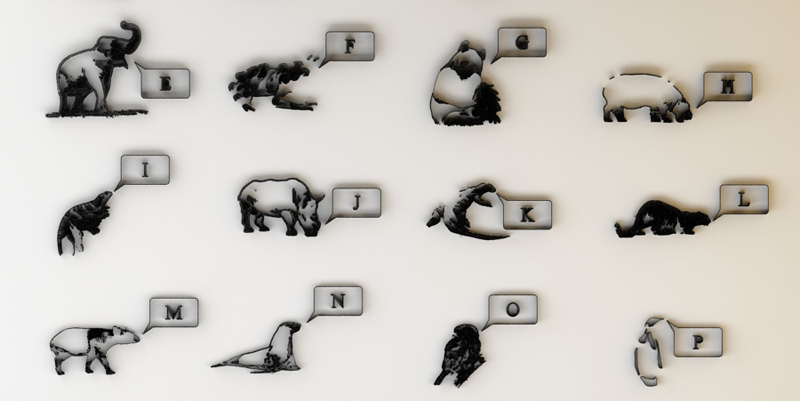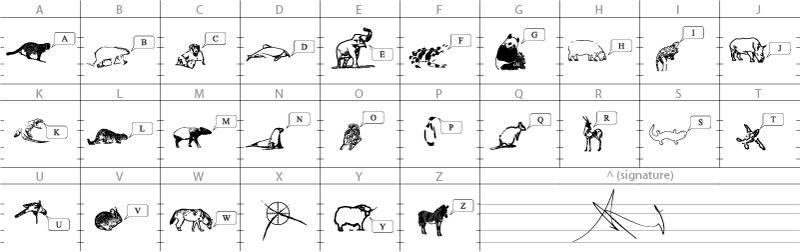
red list with red fonts
During the making of my tender I have prepared a new font style, which has characters that were inspirated by various kinds of threatened animal species, creating an interactive piece of design for users.
What is the symbol of this font style? What could we do if we run out of letters and words?
red list font A
red list font a
red list font